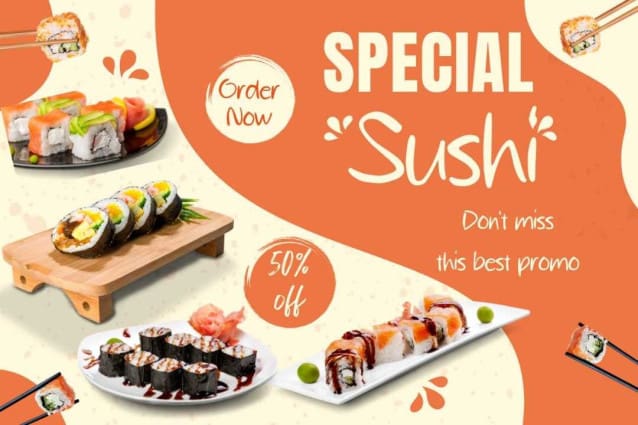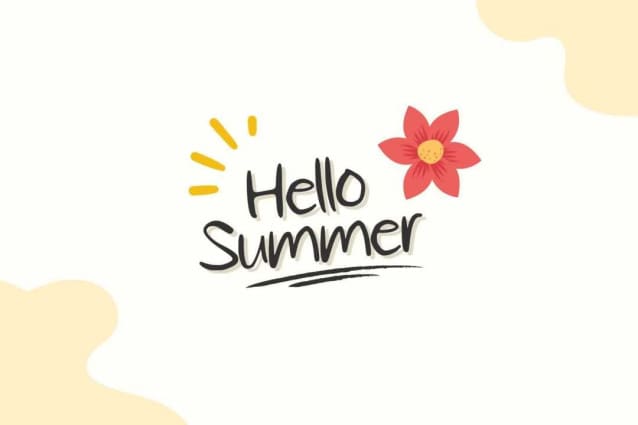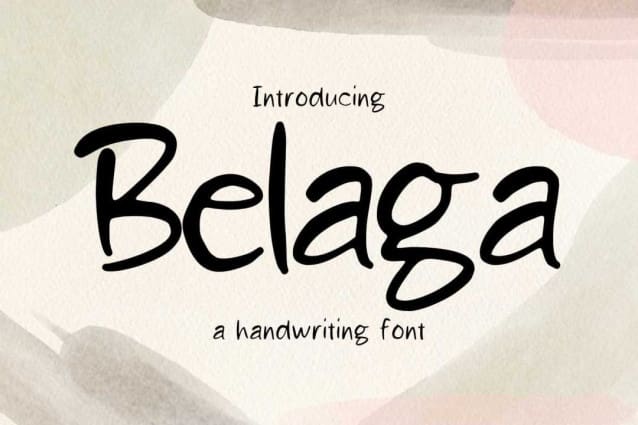
Belaga Hand Font
Belaga Hand Font, it would be a perfect choice to design posters, affiches, logos, t-shirt and magazine prints, eye-pleasing typographic designs and more.